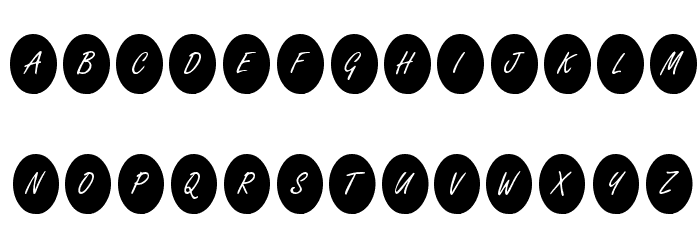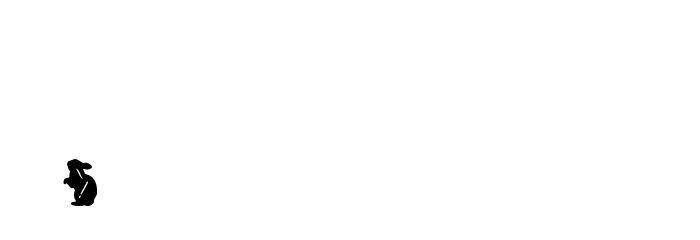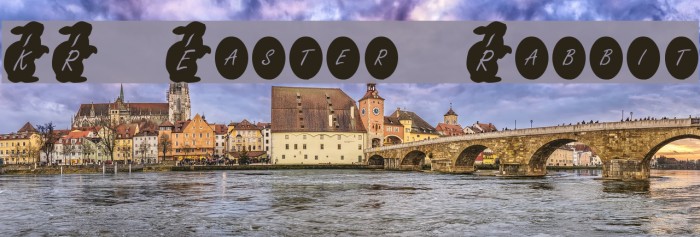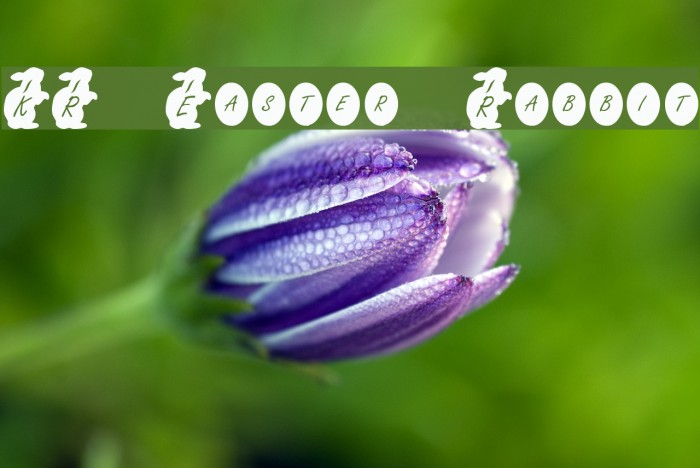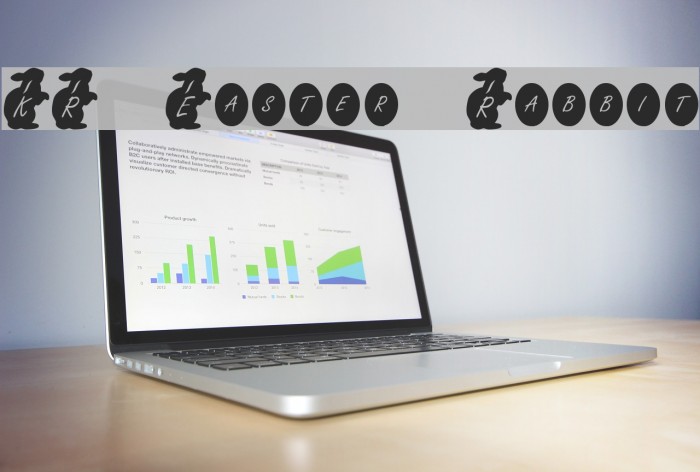
KR Easter Rabbit Font
This playful and whimsical font features uppercase letters creatively integrated into the silhouette of a rabbit, adding a unique and festive touch. The design is bold and eye-catching, making it ideal for projects that require a fun and thematic element. The letters are well-defined within the rabbit shape, ensuring readability while maintaining the decorative aspect. This font is perfect for Easter-themed designs, children's projects, or any creative work that benefits from a touch of humor and charm.
A whimsical font with letters inside rabbit silhouettes, perfect for festive designs.
- Proposed Projects: Ideal for Easter cards, children's book covers, playful posters, and themed party invitations.
- Overall Style: Playful, Festive
- Use Case: Headlines, Logos, Decorative text